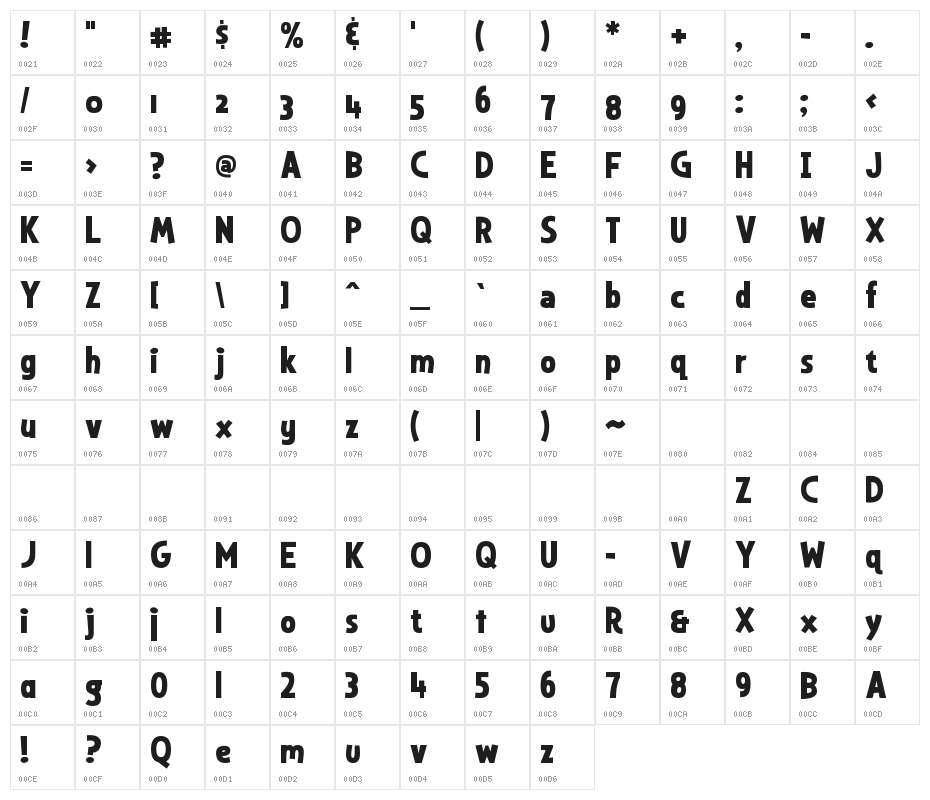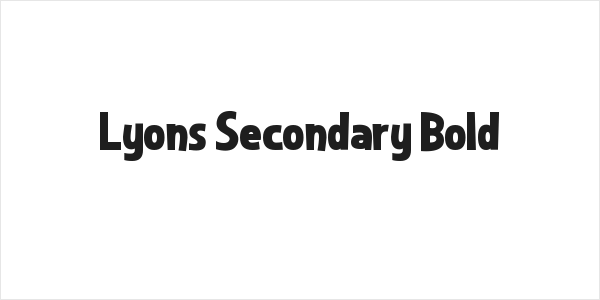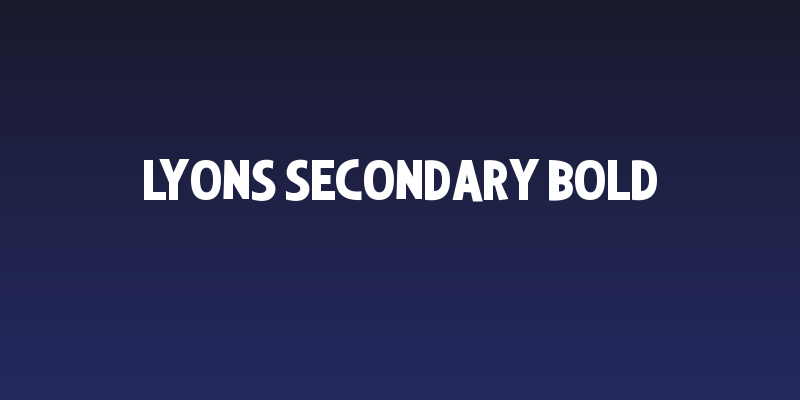
Lyons Secondary Bold Font
Lyons Secondary Bold Description
This font exhibits a bold and robust character with a strong presence. The letters are thick and uniformly weighted, providing a sense of stability and confidence. The uppercase and lowercase characters maintain a consistent style, with rounded edges that soften the overall appearance. The numerals are clear and legible, matching the boldness of the alphabet. Special characters are distinct and well-defined, ensuring versatility in various contexts. The font's design is straightforward yet impactful, making it suitable for attention-grabbing headlines and titles.
| Proposed Projects | Ideal for headlines, posters, branding, and advertising materials where a strong, impactful message is needed. |